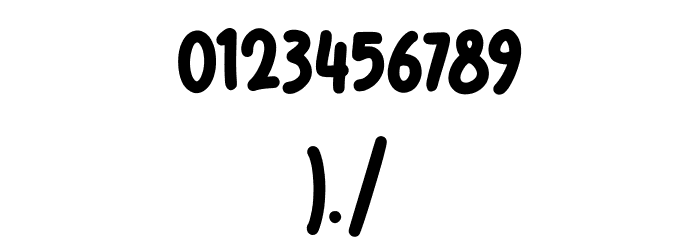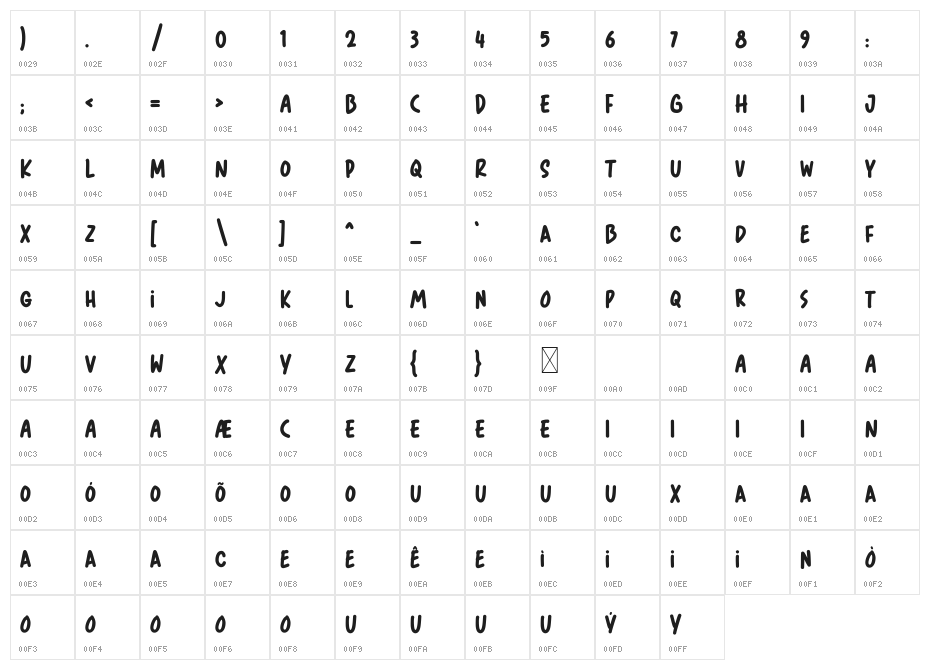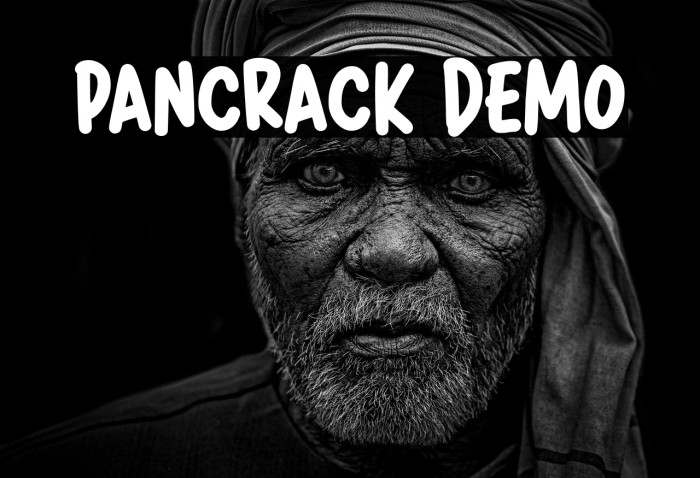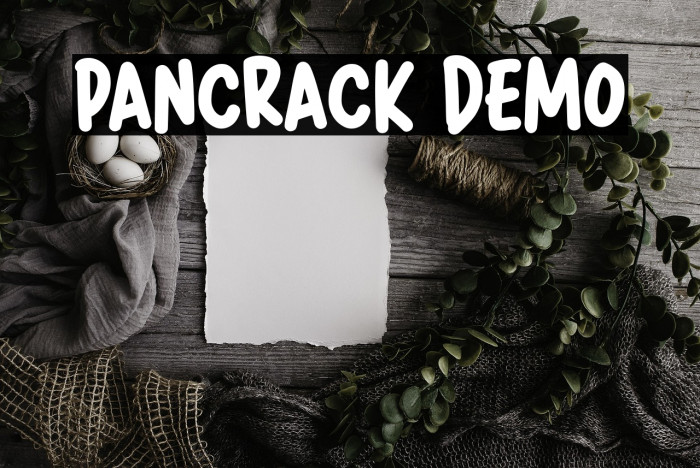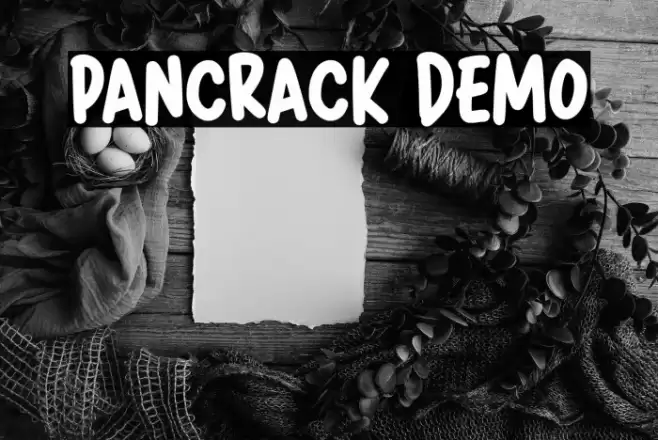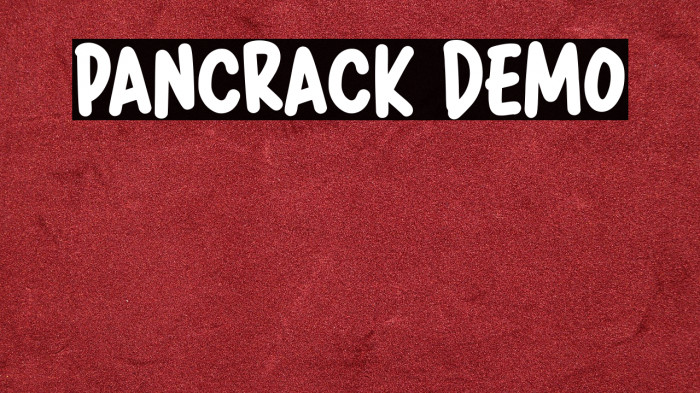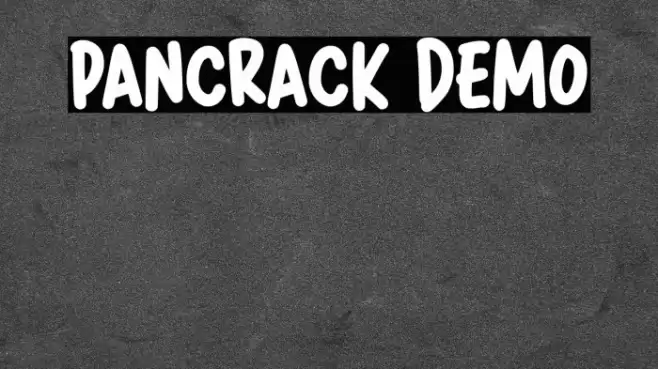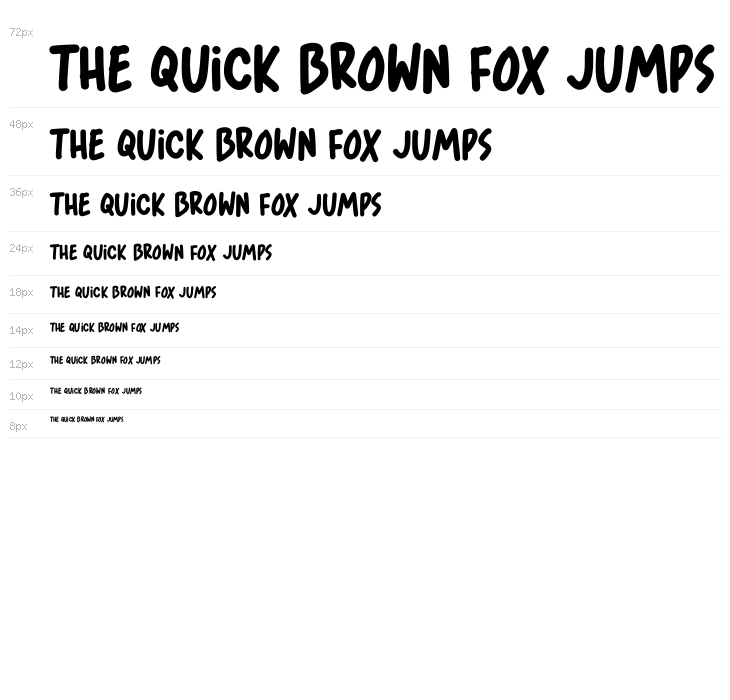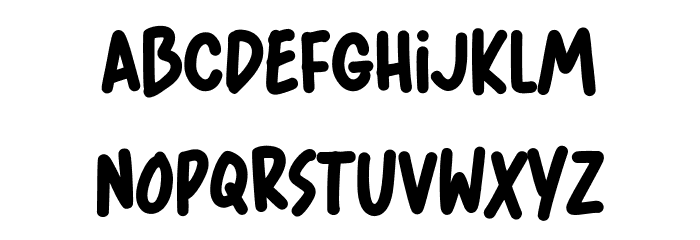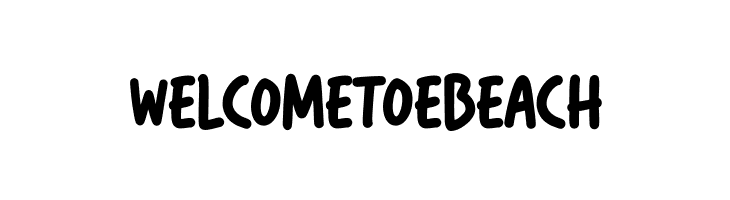
Pancrack DEMO Font
Pancrack DEMO Description
This font features a playful and bold style, characterized by its rounded and slightly irregular letterforms. The strokes are thick and consistent, giving it a strong presence on the page. The uppercase and lowercase letters maintain a uniform height, creating a cohesive look. The numbers and special characters are designed to match the overall playful aesthetic, making it suitable for informal and creative projects. The font's casual and friendly appearance makes it ideal for use in children's books, comic strips, or any design that requires a touch of whimsy.
Overall StylePlayful
Proposed ProjectsIdeal for children's books, comic strips, playful branding, and creative posters.